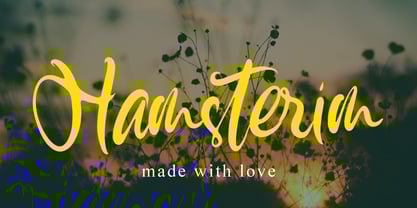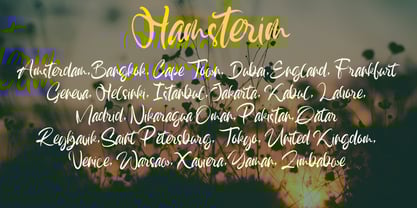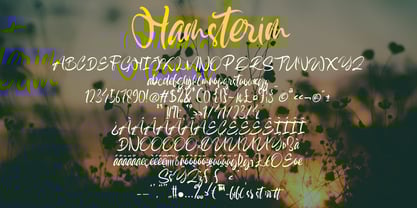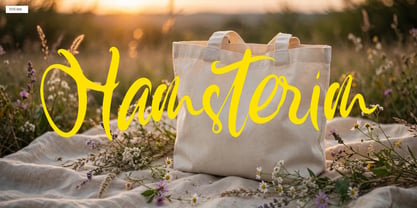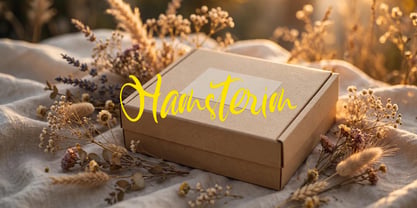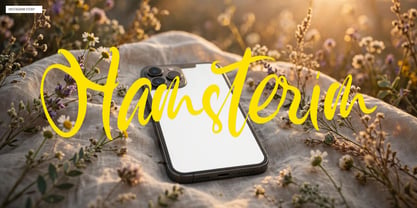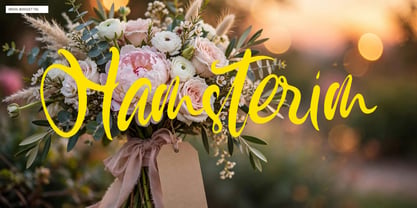
Hamsterim
by Ayska
The Hamsterim Font Family was designed by Dhoni Trihatmoko and published by Ayska. Hamsterim contains 1 styles. More about this family
Dive into the spectacular allure of Hamsterim, a one-of-a-kind font that seamlessly blends chic modernity with artisanal grace. With its incomparable charm, Hamsterim stands ready to be your steadfast partner in every digital art undertaking. The font shines in its flexibility, using its inimitable appeal to reel in blog audiences, introduce a feel of rarity to your digital planner aesthetics, instill uniqueness in your invitations, or convey heartfelt emotions in your do-it-yourself greeting cards. Savor the timeless class and creativity of Hamsterim, the ideal choice for embellishing cherished photo collections or personalizing home décor. With its captivating charm, Hamsterim breathes life into ordinary digital imagery, turning it into remarkable, irresistible masterpieces. Let Hamsterim lead your creative exploration, leaving a trail of evocative creative markers along the way. Discover the creative grandeur of Hamsterim, watching as your artistic horizons morph into bespoke masterpieces.
Designers: Dhoni Trihatmoko
Foundry: Ayska